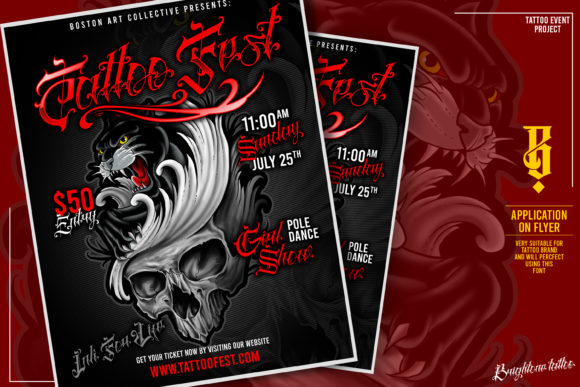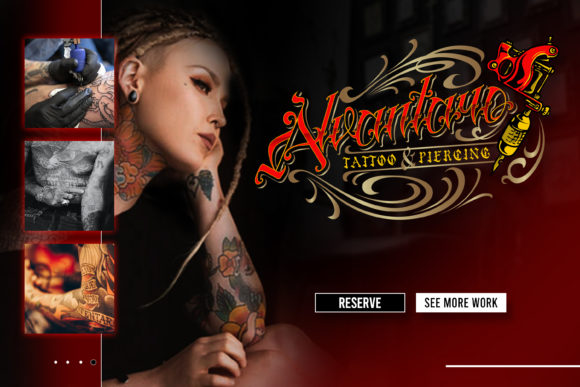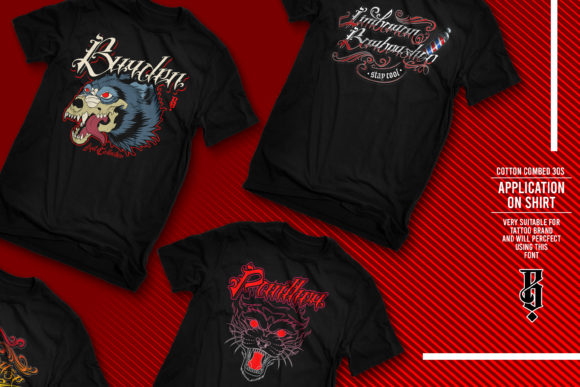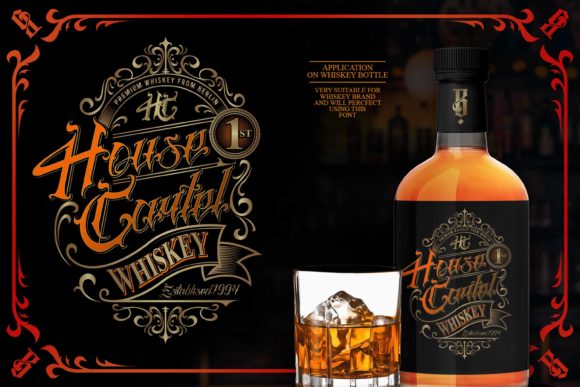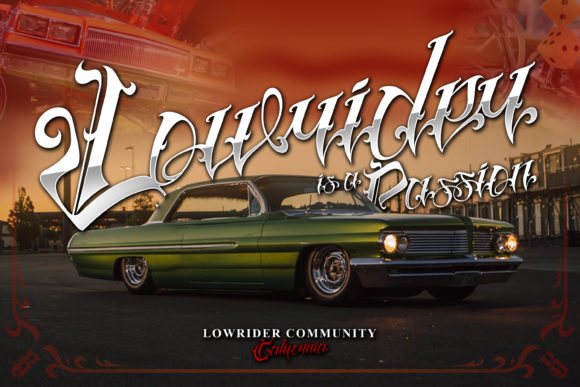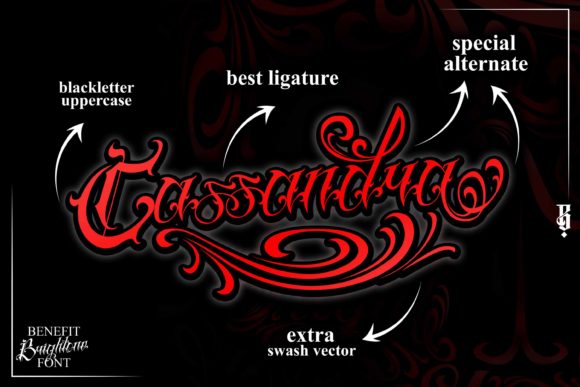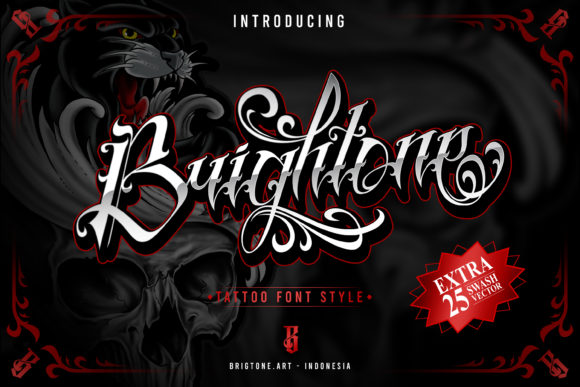
Introducing Brightone Font: Elevate Your Designs with Elegance and Sophistication
In the world of typography, a font can make or break a design. It’s the foundation upon which the aesthetic and tone of a project are built. For designers and crafters looking to add a touch of elegance and sophistication to their creations, Brightone Font is an exceptional choice. This dazzling script font is meticulously crafted with high attention to detail, making it a versatile and valuable asset for any font library.
The Beauty of Brightone Font
Brightone Font stands out with its unique blend of classic script elements and modern flair. Its neatly crafted and highly detailed design ensures that it can be used across a wide range of projects, from elegant branding and advertising to beautiful stationery and digital media. The font’s sophisticated appearance is capable of elevating any creation, making it perfect for designers who aim to impress.
One of the key benefits of Brightone Font is its versatility. Regardless of the topic or theme of your project, this font seamlessly adapts, adding a layer of elegance and refinement. Whether you’re working on a luxury brand’s logo, a wedding invitation, or a fashion blog, Brightone Font can enhance your design, making it more captivating and engaging.
Why Choose Brightone Font?
There are several reasons why Brightone Font should be a part of your font library:
- Elegant Appearance: Its sophisticated and elegant design makes it perfect for projects that require a touch of luxury and refinement.
- Highly Detailed: The font’s high level of detail ensures that it looks great in both digital and print formats.
- Versatile: It can be used across a wide range of projects, making it a valuable and versatile asset.
- Easy to Read: Despite its elegant and script nature, Brightone Font remains highly legible, making it suitable for body text as well as headings.
Using Brightone Font in Your Projects
Incorporating Brightone Font into your designs is straightforward. Its compatibility with various design software makes it easy to integrate into your workflow. Here are a few tips on how to make the most out of Brightone Font:
- Pair it with Simplicity: Brightone Font’s elegance shines best when paired with simple and clean design elements. This contrast will make your design stand out.
- Experiment with Sizes: Play with different font sizes to create a hierarchy of information, adding depth and interest to your design.
- Use it as a Headline Font: Its sophisticated look makes it perfect for headlines and titles. Use it to grab attention and make a statement.
Brightone Font is more than just a script font; it’s a tool that can transform your designs, adding a level of sophistication and elegance that’s hard to achieve with standard fonts. Its versatility, beauty, and readability make it an invaluable asset for designers and crafters looking to elevate their projects. By incorporating Brightone Font into your font library, you’re equipping yourself with the means to create stunning, professional-grade designs that capture attention and leave a lasting impression.
Whether you’re a seasoned designer or a crafting enthusiast, Brightone Font is sure to become a favorite in your collection. So, why wait? Explore the possibilities that Brightone Font offers and take your designs to new heights of elegance and sophistication.